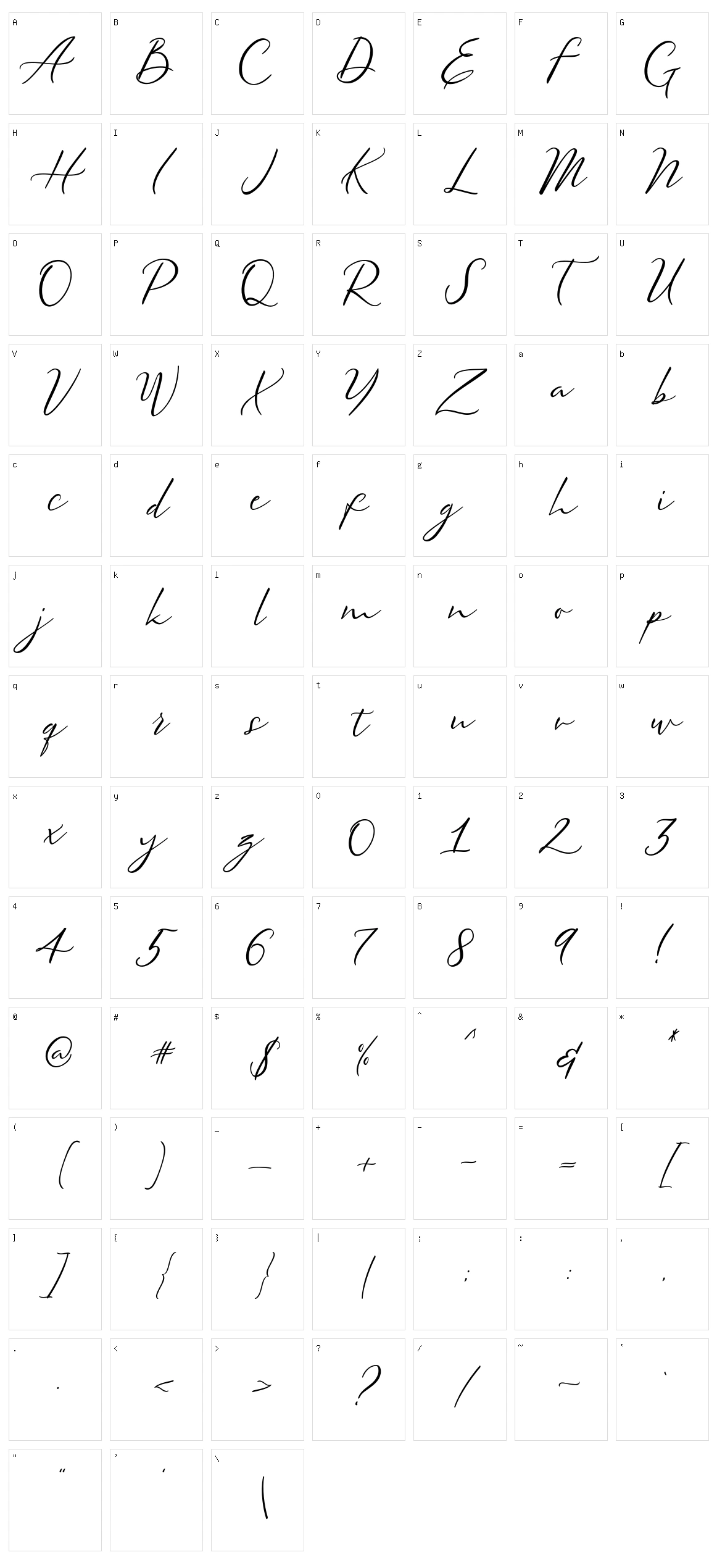
Meysha Demo created with stylish and authentic handwritten characters. This font was PUA encoded.
Meysha (full version) is an authentic handwritten style that comes with Extended Latin Characters.
Meysha Demo works perfectly for logos, display, product branding, wedding invitation card, stationary, packaging, clothing, flyer, apparel, magazines, brochures, lable, posters, badges, etc.
Meysha (full version) comes with 281 glyphs and 52 alternate characters contain with opentype features (supported with contextual alternates mode).
Meysha (full version) also comes with 11 extended ligatures that allowing you to make stuff looks more exclusive and pro standard.